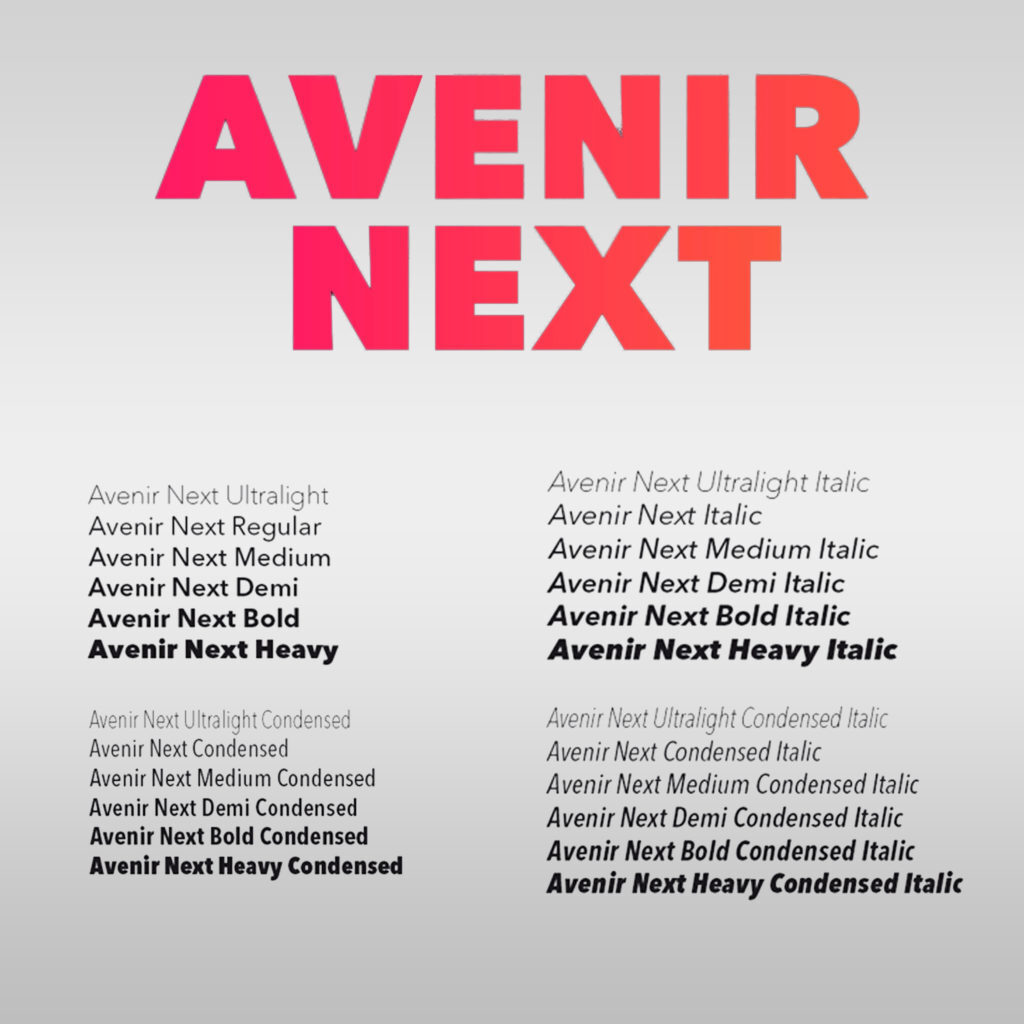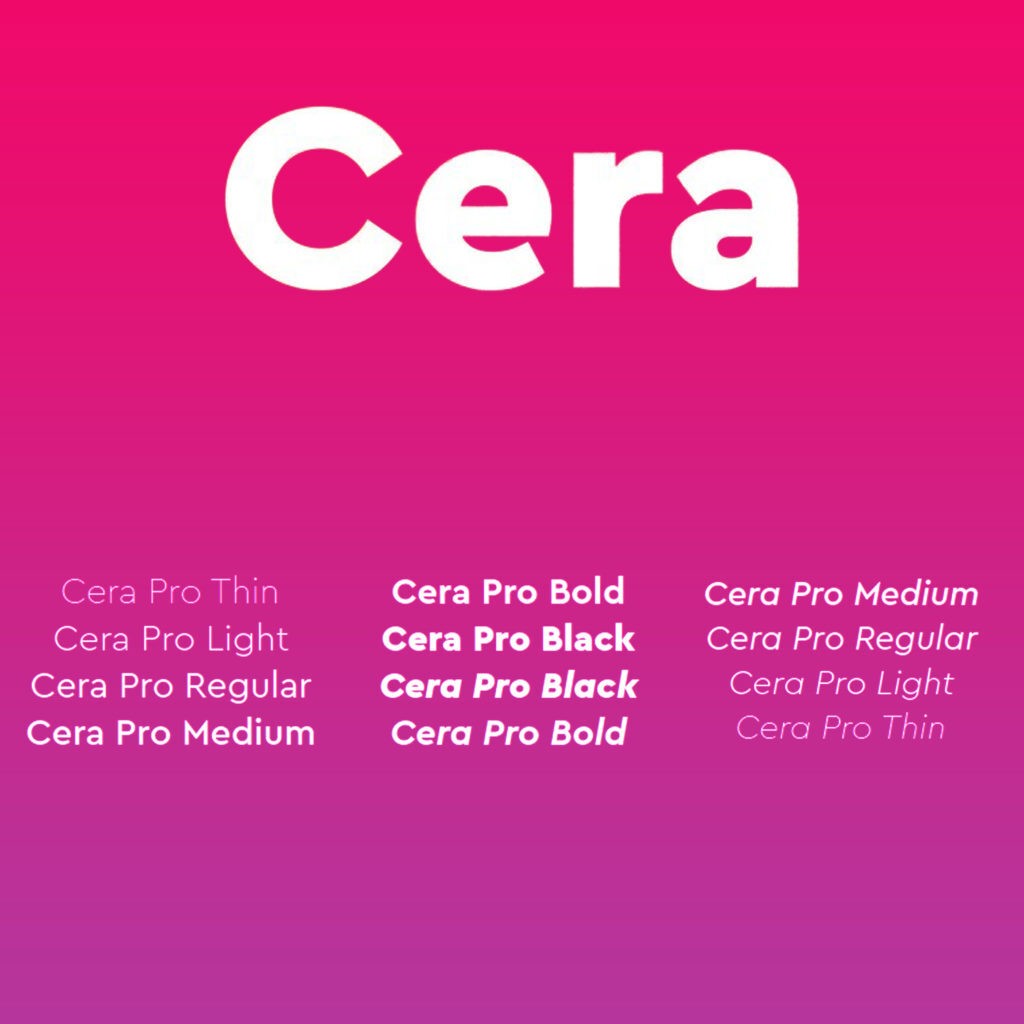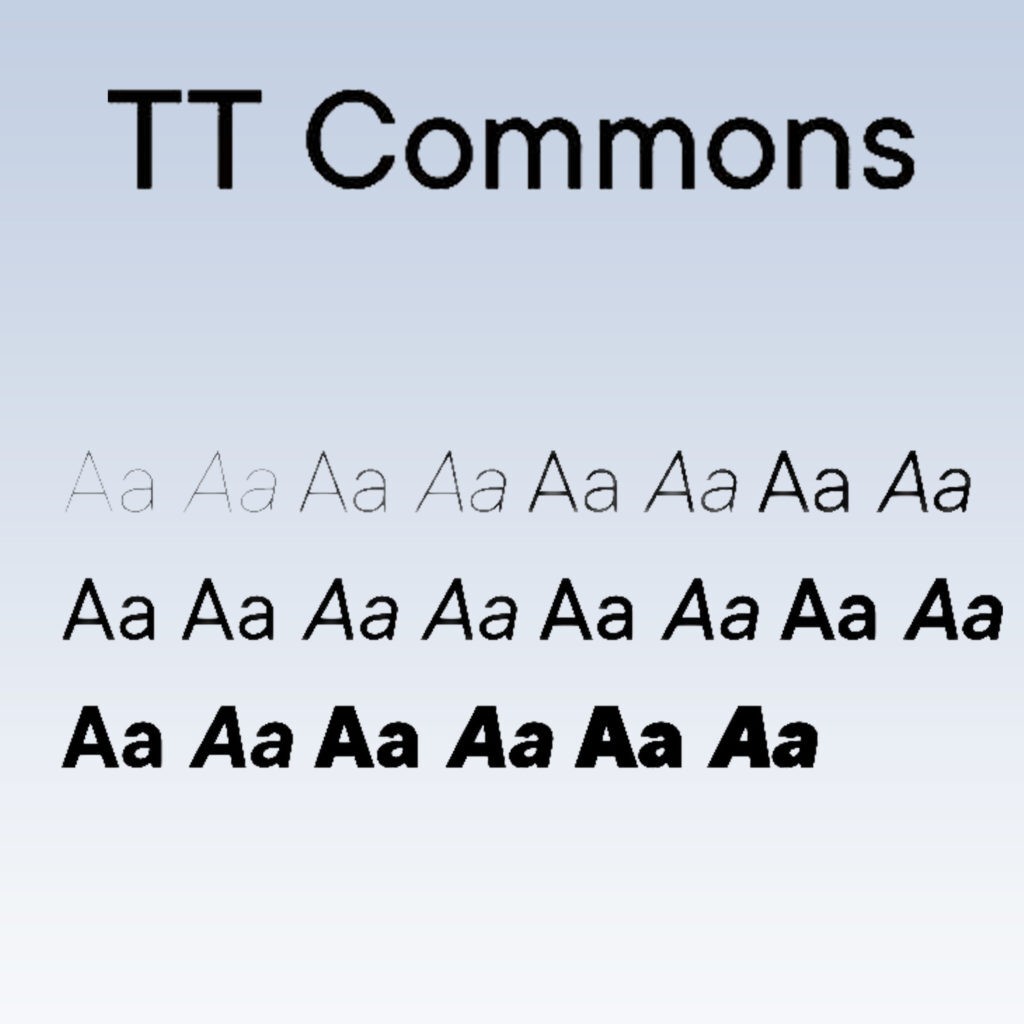
10 Best Fonts For Logos: Top Recommended Fonts For a Clean and Minimalistic Logo Design
For a clean and neat logo, a minimalist and simplistic approach to typography is where one should begin. Brands in the past have proven how minimalist and simplistic logos can make a logo timeless and iconic. Look at the fonts used by Louis Vuitton, Kate Spade, Burberry, Tiffany & Co. – all these big brands (and more) have one thing in common – timeless, effortless logo typography.
With the evolution in designing, the best fonts for logo design have also evolved over time. With just a serif font in the past, we have now arrived at a huge variety of non-serif fonts available for use. Minimalism, as a concept of design, is fueled by the idea that less is more; and perhaps, more really is more. Minimal fonts could be regarded or referred to as fonts that are stripped down to expose only the essential elements- sans any unnecessary fancy strokes or embellishment.
While there could be hundreds of minimal fonts available out there, here we have come down to a quick cheat-sheet of 10 best logo fonts for a clean and minimalistic logo design–
Each font has been given a brief description and a supporting image for better clarity.
1. Brandon Grotesque
This font, while has a warm and caring touch just by the look of it, also does not compromise on functionality and utility. One of the best fonts for logo design, Brandon Grotesque is essentially a sans serif type font, from a family of six weights plus matching italics and was designed by Hannes von Döhren in 2009/10.
Essentially based on geometric forms that are optically corrected for better legibility, this professional typography font is armed to nail any logo in its complex, professional look. Brandon Grotesque also does wonders for contemporary brands and their logos.
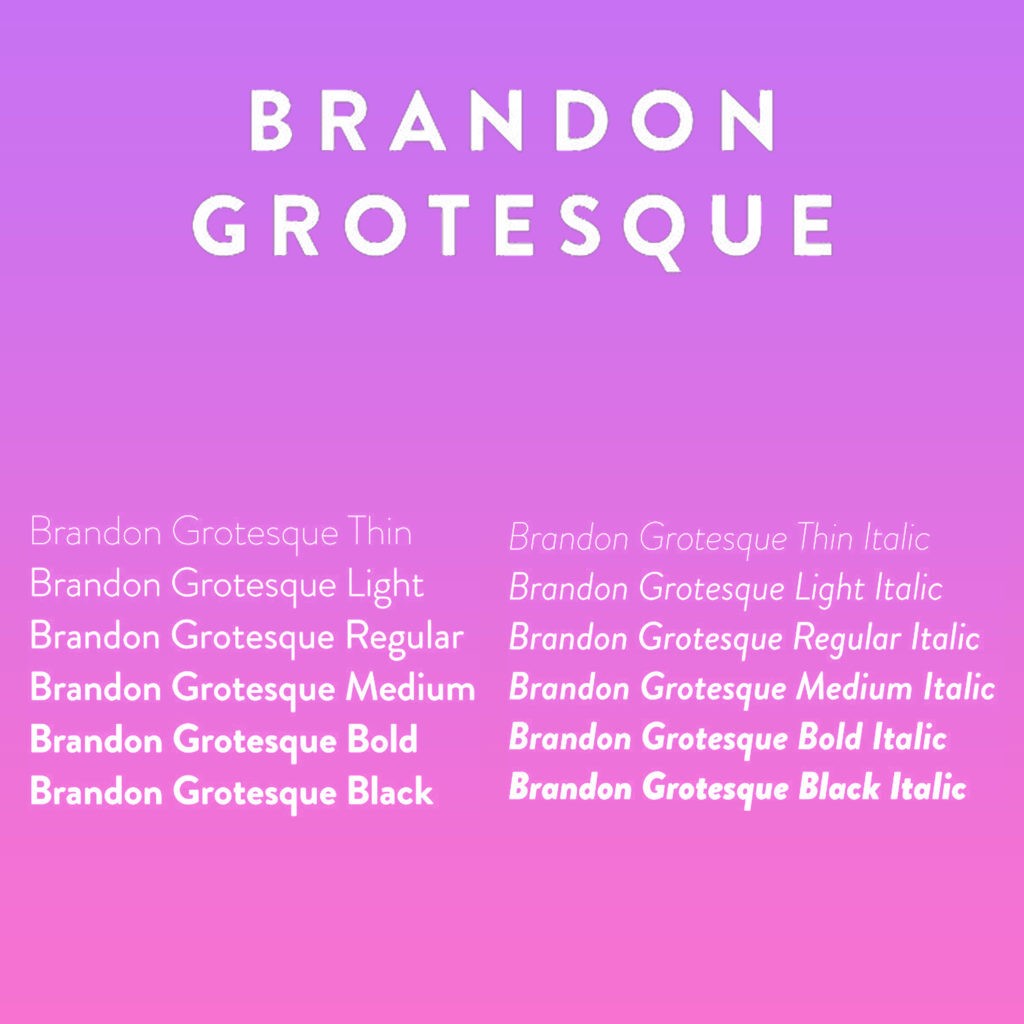
2. FF DIN®
The FF Din font family has a total of 20 weights with a rounded font version and it all ranges from light to black in normal and condensed styles (also including italics). You can also avail some advanced typographical support with FF DIN. The font features some really useful features such as case-sensitive forms, fractions, super- and subscript characters, and stylistic alternates.
Ideal for logo and brand identity designs, using FF Din for your logo can really move your brand to great brand recognition and awareness in general.
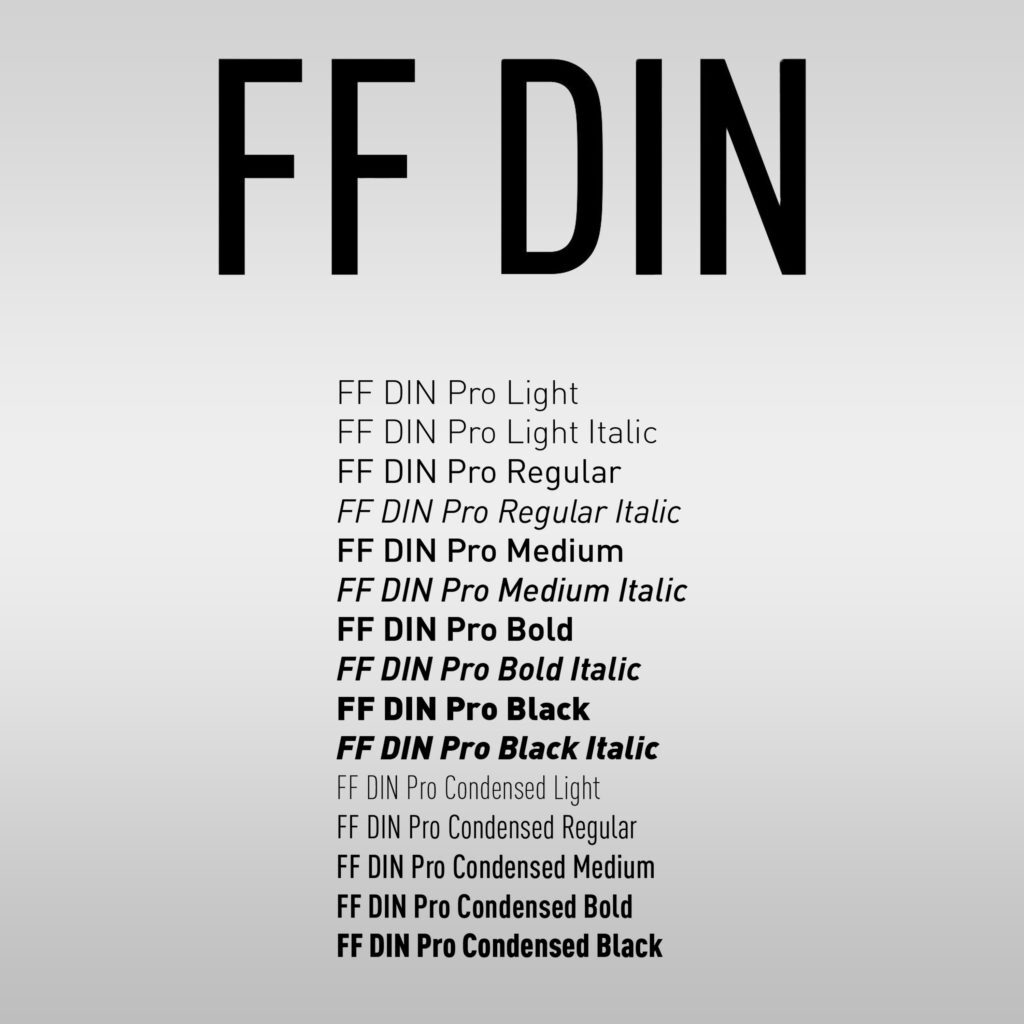
3. Proxima Nova
While FF Din offers some 20 weights, Proxima Nova leaves you by surprise, outweighing FF Din with its 48 styles! The Proxima Nova family is an overhaul of Proxima Sans (1994) in which the original six fonts have been expanded to 48 fonts. This family offers three widths: Proxima Nova, Proxima Nova Condensed, and Proxima Nova Extra Condensed. Each of the widths further offers 16 fonts each – seven weights with matching italics.
Proxima Nova can be looked at as the bridge between typefaces like Futura and classic sans faces. The hybrid by-product combines the perfect elements of humanistic proportions in a geometric appearance.
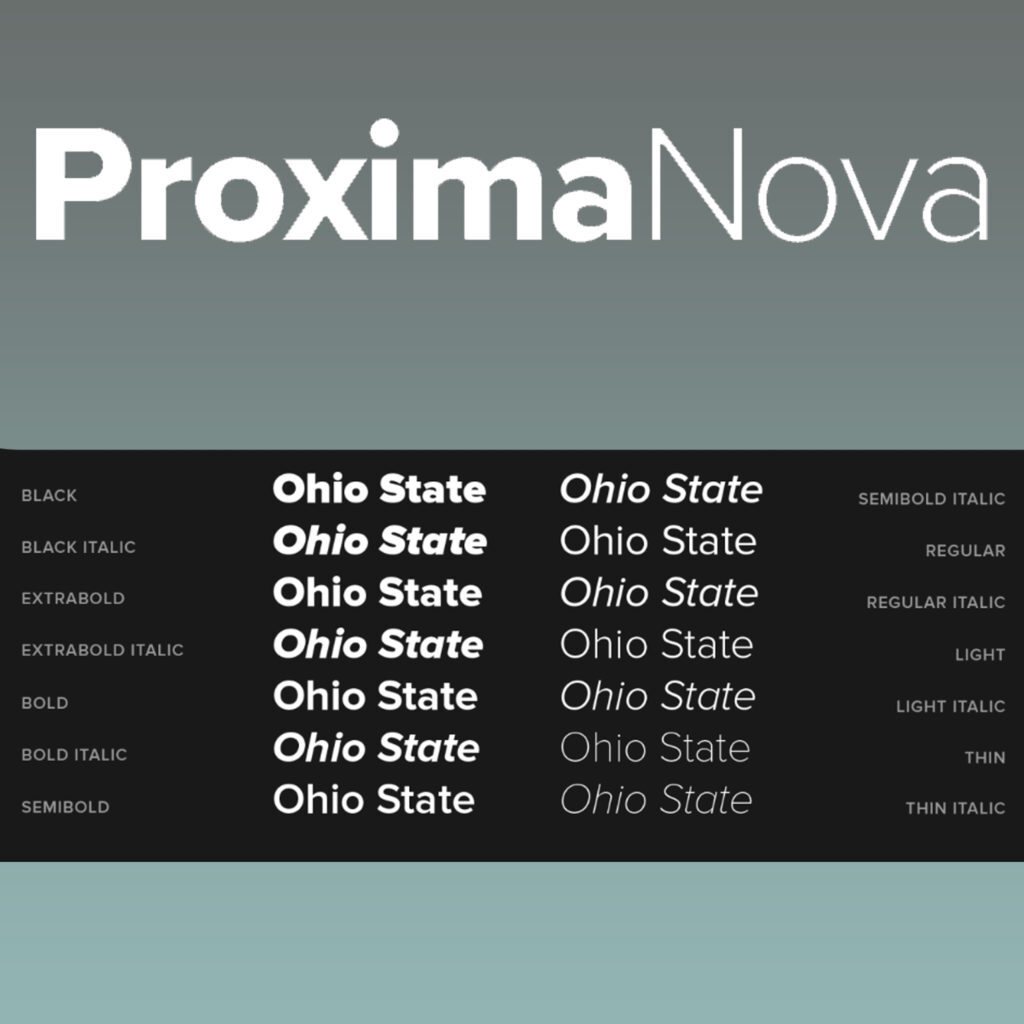
4. Gilroy™
Speaking of the best fonts for logos, Gilroy is simple to understand. It is your modern sans serif, however, with a geometric touch and looks to it. Gilroy is equipped with 20 weights, 10 uprights, and its matching italics. The geometric, clean, and neat font comes with light as well as extra bold weights that are free to use, making it a perfect match for graphic designs of brands. Gilroy works wonders for use over the web, for signage, and for building an overall corporate identity in the long run.
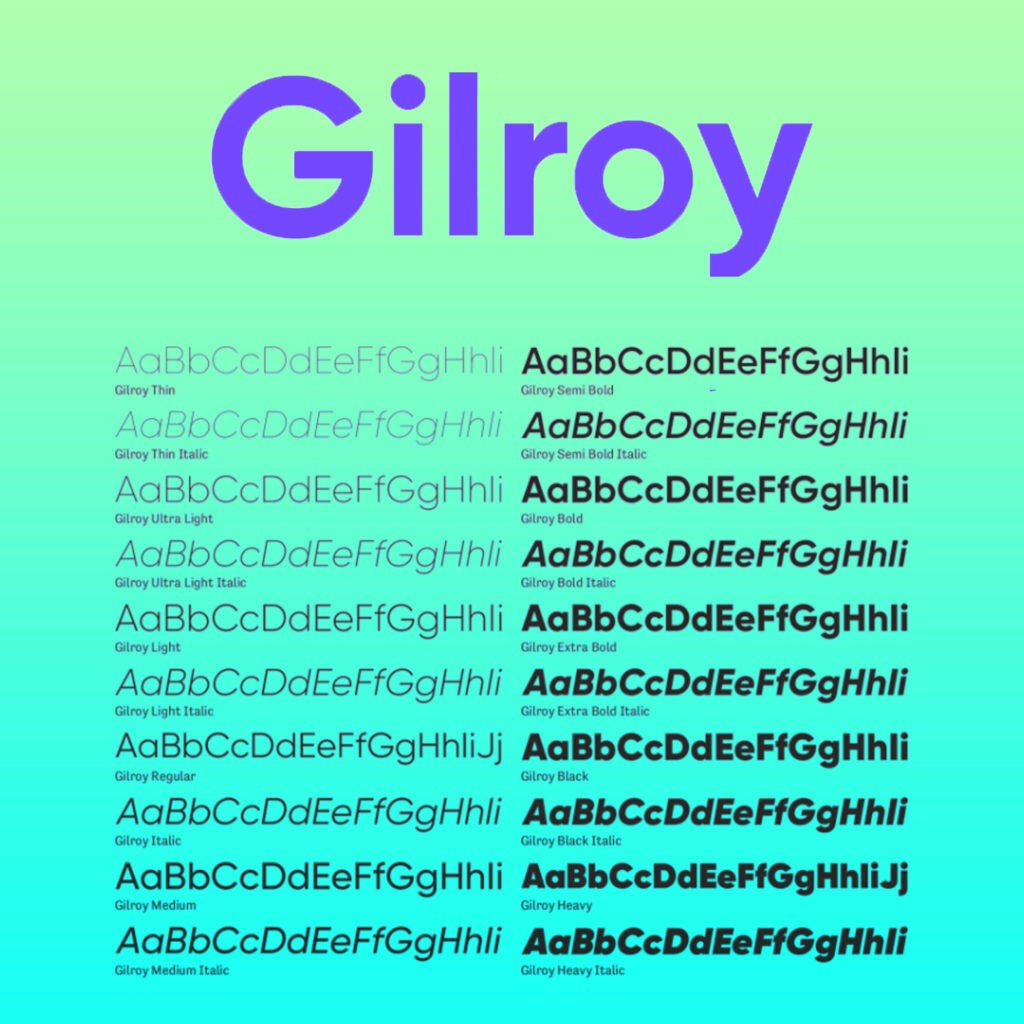
5. Mont™
Mont, also, is a geometric-looking sans serif but it consists of ten weights. Mont ranges from hairline to black with matching italics and also supports extended Latin, Cyrillic, and Greek — more than 130 languages all together.
Some unique features and characteristics that Mont, as one of the best fonts for logos, offers include its pointed “t” and the prominent x-height. These features, also, particularly make Mont a great font for expressive headlines, for long texts, and for phenomenal logos.
Mont encompasses a huge range of OpenType features like tabular figures and advanced typographic features like ligatures, fractions, case-sensitive forms, superscripts, subscripts amongst others. Mont’s typeface and the options to experiment with its versatility make it a go-to font for any graphic designer’s block.
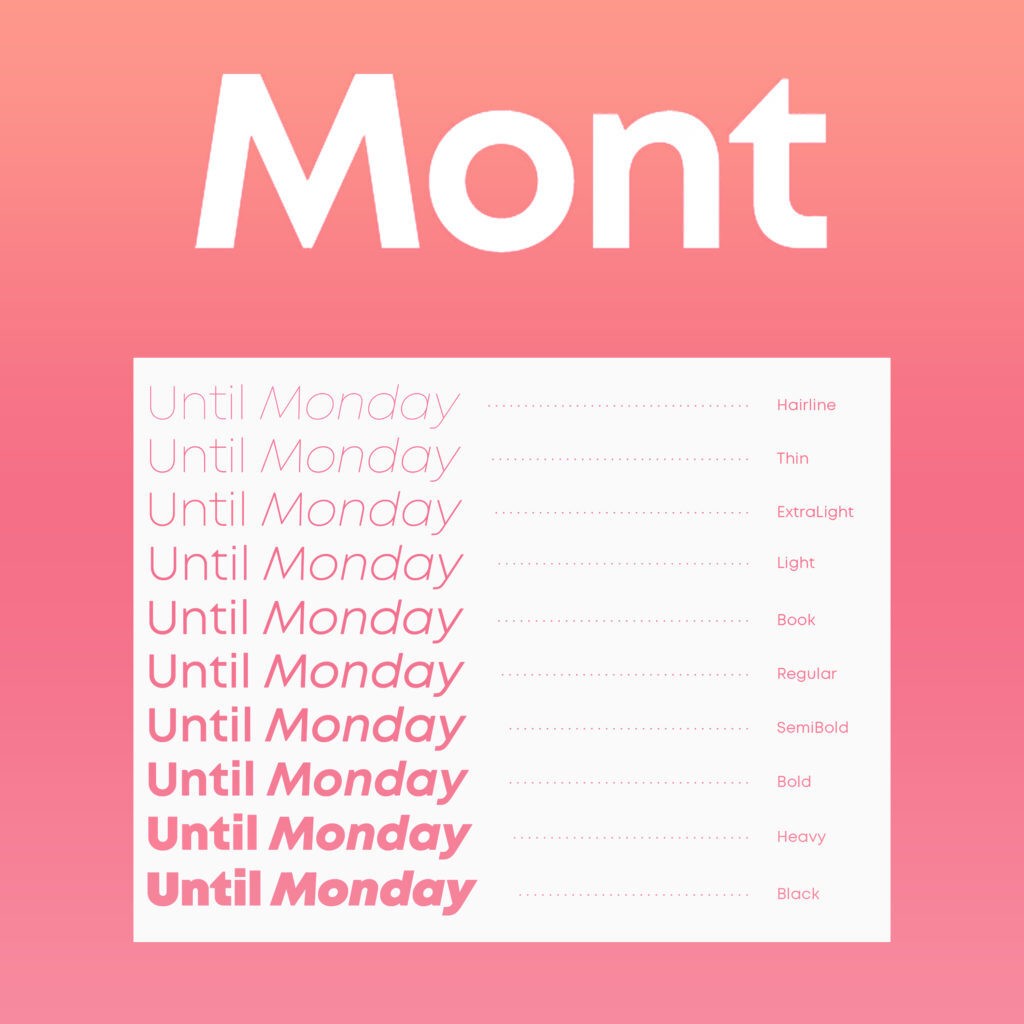
6. Avenir Next®
Avenir Next is the result of beautifully designed and updated sans. The update, however, has only been undertaken in a way that does not compromise with its technical standards; only to yield a superior sans family.
The Museo Sans font family comes in 10 fonts: 5 weights of 100, 300, 500, 700, 900; with each an italic.